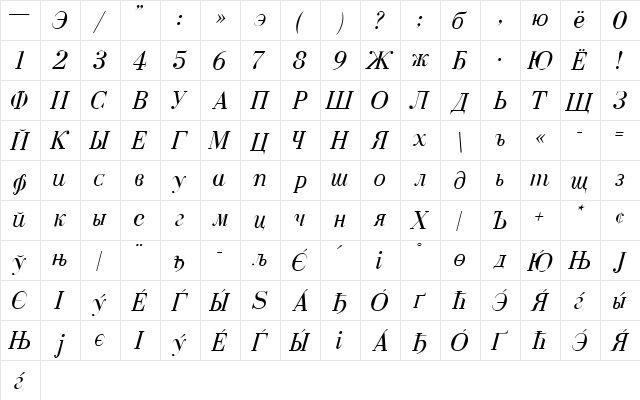
Ekaterina Regular
Design Context for Ekaterina Typeface
Ekaterina is a composed and adaptable typeface that performs quietly and consistently across a wide range of design contexts.